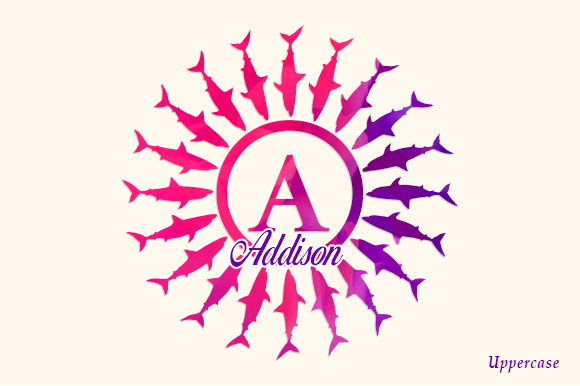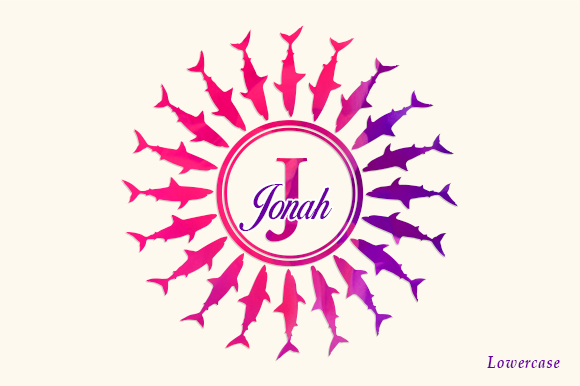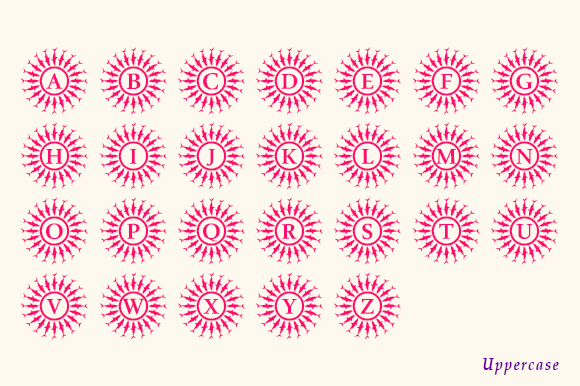
Introduction to Shark Circle Frame Monogram Font
Have you ever found yourself in the midst of a creative project, searching for the perfect font to bring your vision to life? I’m sure many designers can relate to that feeling of excitement and frustration when trying to find the perfect design resource. As I sat at my desk, surrounded by papers and design software, I stumbled upon the Shark Circle Frame Monogram Font. Its charming, authentic feel instantly caught my attention, and I knew I had to learn more about it.
After diving deeper into the world of this beautiful font, I discovered that it’s not just a pretty face – it’s a versatile design tool that can be used to create stunning invitations, beautiful stationary art, eye-catching social media posts, and cute greeting cards. With its transparent background and high-quality design, the Shark Circle Frame Monogram Font is a valuable addition to any designer’s toolkit.
Key Features of Shark Circle Frame Monogram Font
- Unique and creative monogram font design, perfect for a variety of projects such as custom gifts, invitations, and more.
- High-quality design resource with a transparent background, making it easy to use in any creative project.
- Monogram font features a fun and playful shark design, adding a touch of whimsy to any project.
Honest Review: Shark Circle Frame Monogram Font
I recently came across the Shark Circle Frame Monogram Font and I must say, it’s been a game-changer for my creative projects. The font is perfect for adding a touch of personality to my designs.
- ✨ High-quality design: The font is well-crafted and visually appealing, making it perfect for any design project.
- ✨ Transparent background: The font has a transparent background, allowing me to easily customize it to fit my design needs.
- ⚠️ Limited customization options: While the font is great as is, I wish there were more customization options available, such as different color schemes or font sizes.
- ⚠️ Not suitable for large text: The font is best used for smaller text sizes, as it can become difficult to read at larger sizes.
Use the Shark Circle Frame Monogram Font in a variety of creative projects, such as invitations, business cards, and social media graphics. Experiment with different font sizes and colors to create a unique look. You can also combine the font with other design elements, such as images and shapes, to add visual interest.
The Shark Circle Frame Monogram Font is perfect for designers and artists looking for a high-quality design resource. It’s ideal for creating custom invitations, business cards, and social media graphics. You can also use it in educational projects, such as lesson plans and presentations.